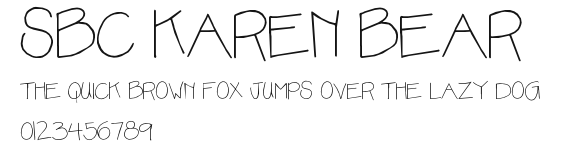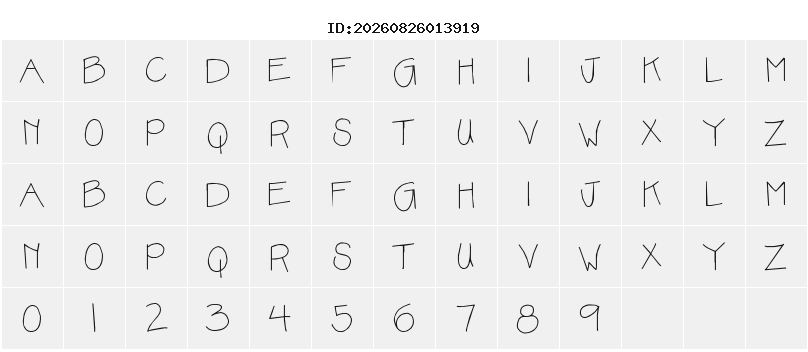
• Font Name: SBC Karen Bear
• Full Font Name: SBC Karen Bear
• Version: Version 1.00 February 20, 2004, initial release
SBC Karen Bear.ttf is a modern, elegant sans-serif font designed for ultimate readability and visual harmony. Perfect for branding, headlines, web design, and print materials.